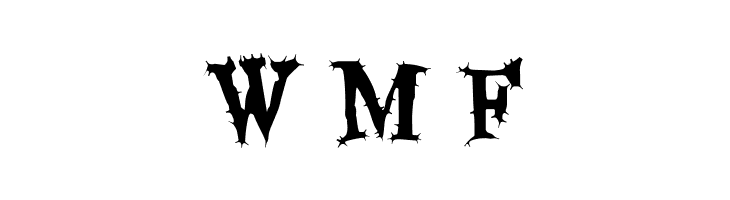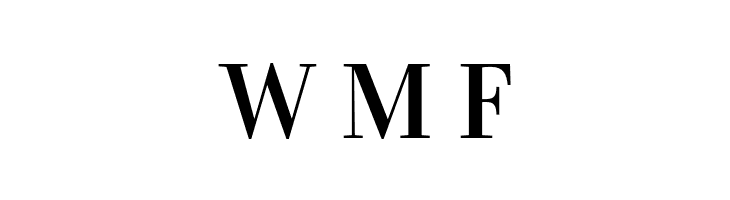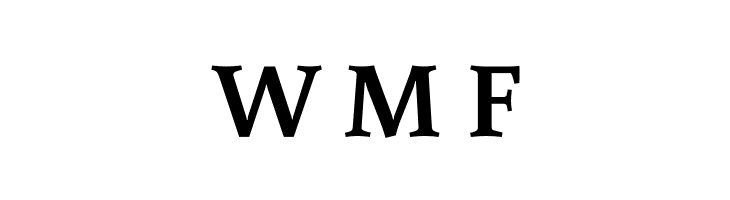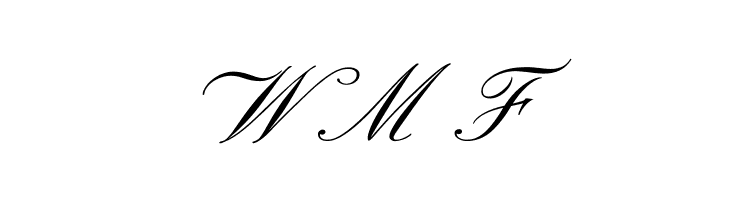
An edgy, thorny font with bold, irregular shapes and sharp angles.
A classic serif font with high contrast and elegant strokes.
A bold, cursive font with dynamic, sweeping strokes and fluid connections.
A playful, whimsical serif font with bold, rounded serifs and hand-drawn appeal.
A bold serif font with strong strokes and a classic, elegant style.
A classic serif font with a modern touch, featuring elegant curves and strong readability.
A bold, modern slab serif font with strong, block-like serifs.
A bold and impactful slab serif typeface with strong, block-like serifs.
An elegant and decorative script font with flowing, cursive letterforms.
An elegant script font with flowing, cursive letterforms and ornate details.
A playful, hand-drawn font with bold, whimsical characters.
A modern serif font with a friendly, approachable style and excellent readability.
A modern serif typeface with bold strokes and rounded edges.
A vintage, cursive script font with a bold, flowing style.
A bold, geometric font with strong, uniform strokes and a modern aesthetic.
A bold, playful font with rounded, slightly irregular letterforms.
A geometric, futuristic font with angular, modular letterforms and consistent line weight.
A geometric, futuristic font with sharp angles and a structured design.
A geometric, futuristic font with angular, blocky letterforms.
A geometric, futuristic font with sharp angles and a modular structure.
An elegant script font with flowing, cursive strokes and ornate uppercase letters.
A modern yet vintage font with tall, narrow letterforms and rounded edges.
A modern-vintage font with tall, narrow letterforms and subtle curves.
A bold, playful font with rounded edges and a modern-retro charm.
A classic serif font with elegant strokes and balanced proportions.
A classic serif font with modern elegance and balanced contrast.
A robust slab serif font with a classic yet modern aesthetic.
A classic serif font with an elegant italic slant, perfect for formal uses.
A bold, modern font with strong, thick strokes and a commanding presence.
) A modern sans-serif font with clean, balanced letterforms and consistent stroke width.